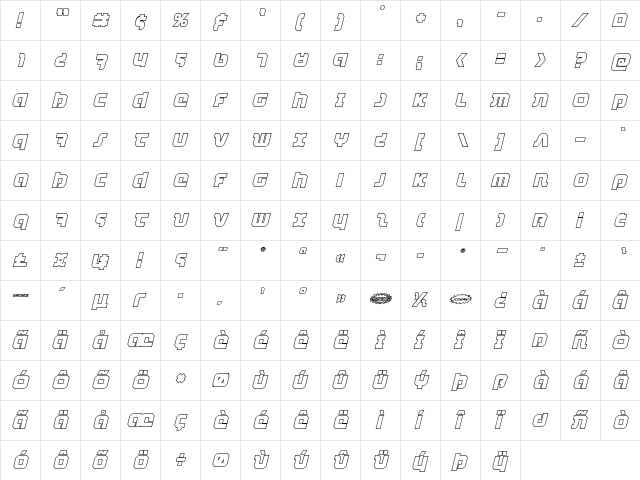
Combat Droid Outline Italic Outline Italic
Design Context for Combat Droid Outline Italic Typeface
Combat Droid Outline Italic draws on military and industrial lettering traditions, with forms that communicate strength and precision. The dynamic lean of this cut emphasises speed and emphasis in any layout.
Designed for tactical branding, military-inspired apparel, action game UI, and utility-focused signage.
Pro Tip: Use Combat Droid Outline Italic at medium-to-large sizes where its utilitarian structure can be appreciated — the character detail gets lost at small sizes.